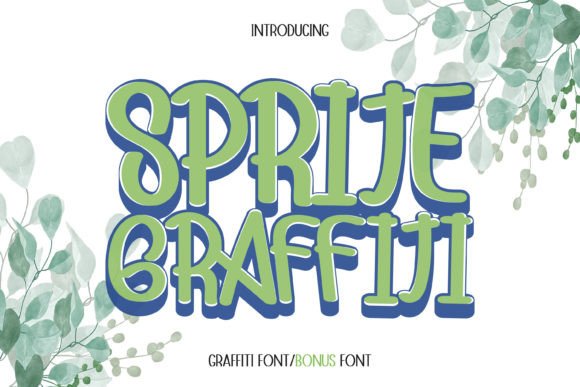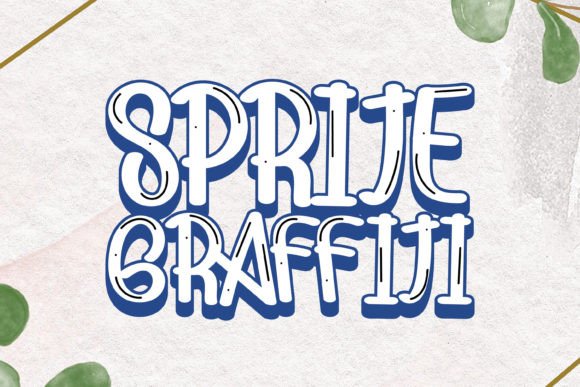
Sprite Graffiti Font: A Bold Display Font for Eye-Catching Designs
About the Sprite Graffiti Font
Crafted with precision, the Sprite Graffiti Font is ready to bring your ideas to life. Sprite Graffiti is an eye-catching display font that features bold lines and a unique, attention-grabbing style. Ideal for headlines, logos, and advertising, it’s sure to make your text stand out and captivate your audience.